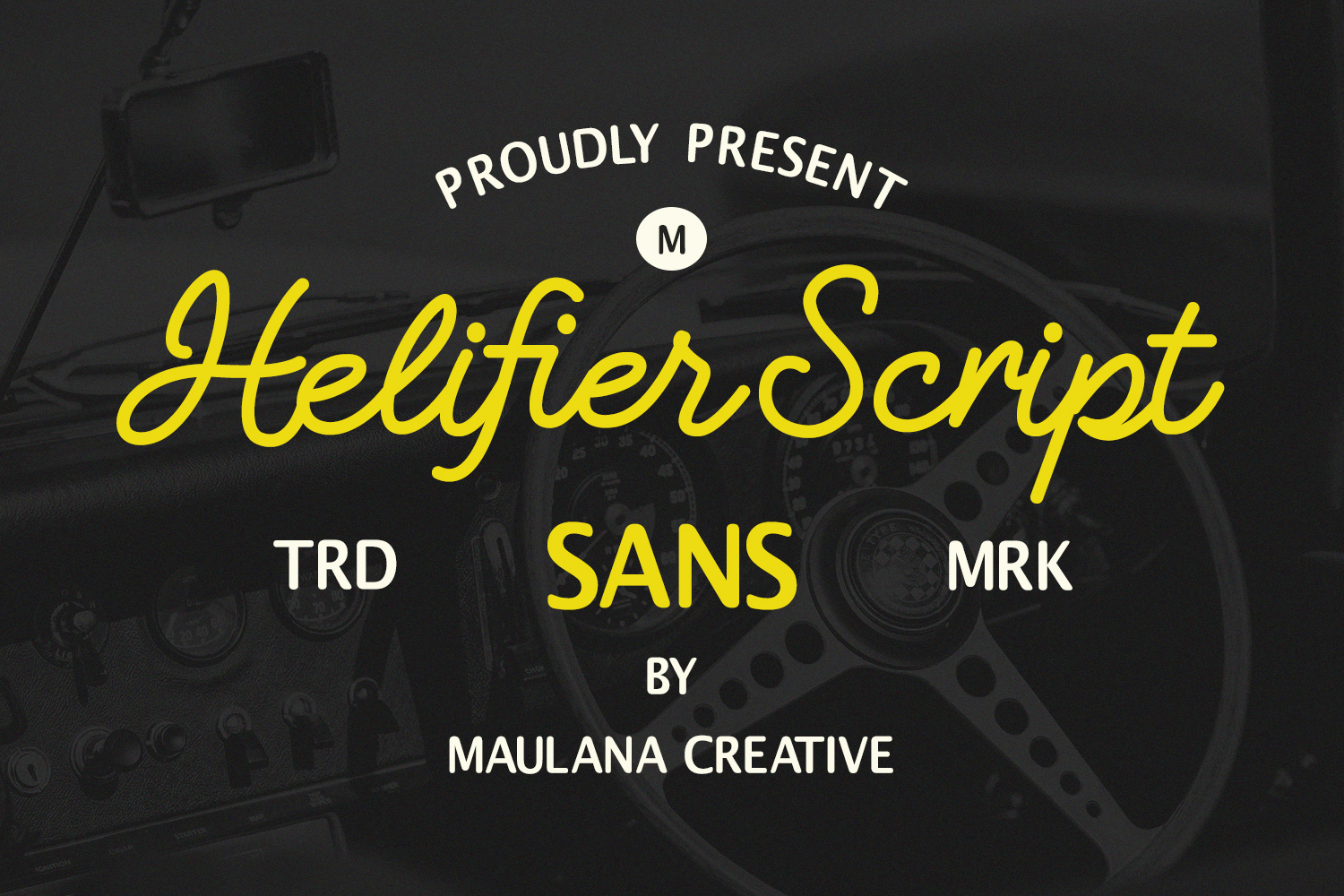
Helifier Font Duo Vintage Script Sans Serif
Helifier Font Duo features a seamless pairing of a smooth, flowing script with a complementary clean sans serif. Designed to capture a classic vintage aesthetic, this font duo provides dynamic contrast for branding, logo design, signage, and product packaging. The script weight offers fluid, connected letterforms that add character and movement, while the sans serif delivers solid legibility and structure.
Equipped with uppercase and lowercase sets, numerical figures, punctuation, standard ligatures, and multilingual accent support, Helifier Font Duo ensures high versatility across digital and graphic projects. It provides a balanced typography solution for classic automotive themes, event displays, badges, labels, and retro-inspired visual creative work.
- Ligature for a natural handwriting flow